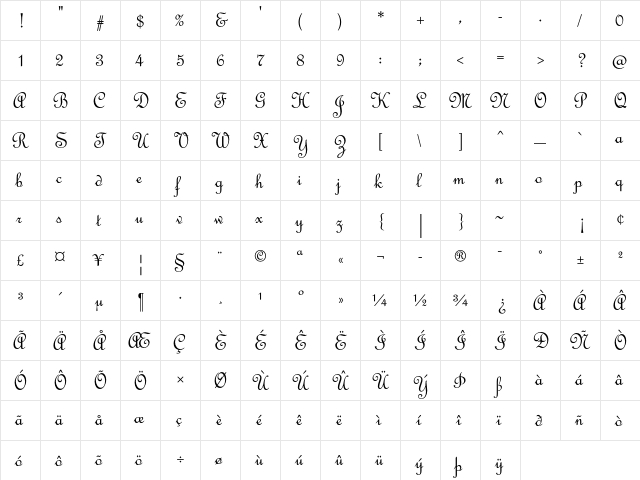
French Script Std Regular
Design Context for French Script Std Typeface
French Script Std brings a calligraphic fluidity to the page — its connecting strokes and expressive curves give it an unmistakably human quality.
Font Pairing: Combine French Script Std with a simple geometric sans for maximum contrast — the tension between flowing curves and clean structure is a classic typographic pairing.
Pro Tip: Use French Script Std for short runs of text — names, titles, or taglines. Extended body copy in script faces tires the eye quickly.